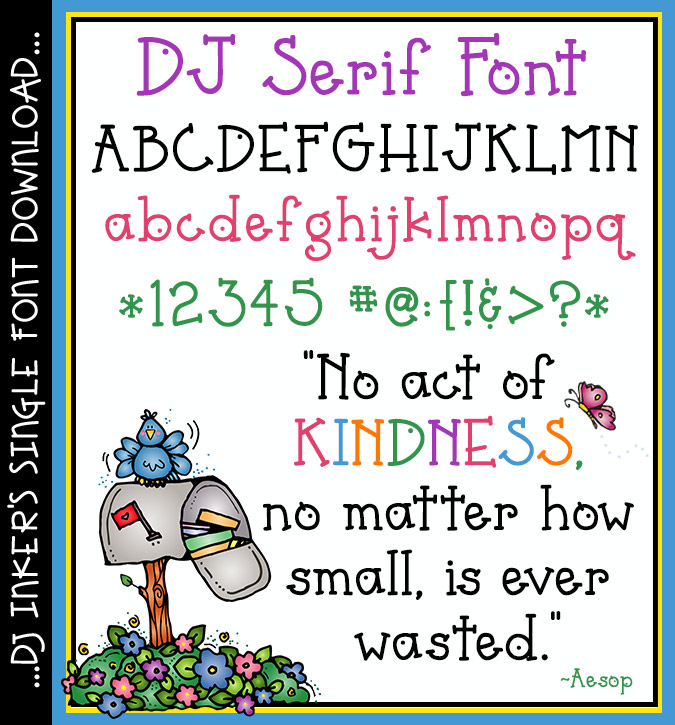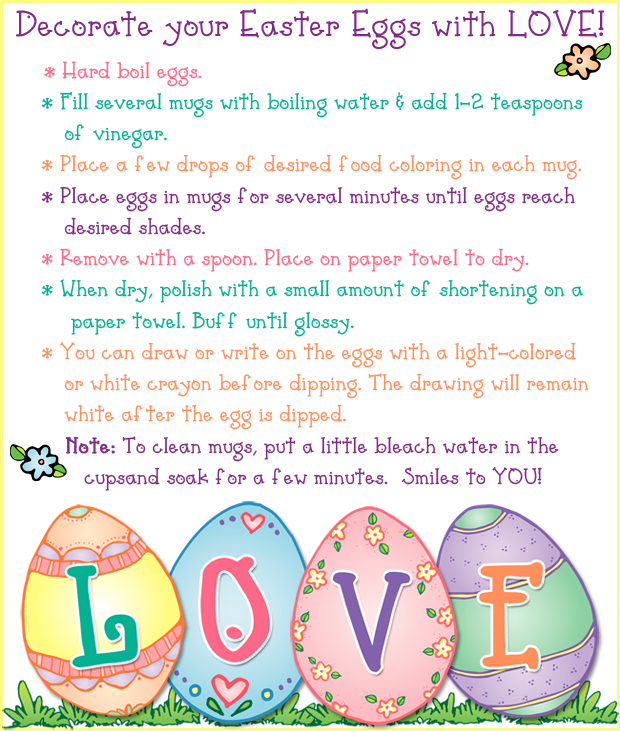
DJ Serif Font Download
DJ Serif is a DJ classic!  This clean and simple serif font is great for all of your basic text at school, at work or just creating smiles. Excellent for worksheets, announcements, labels, letters and more.